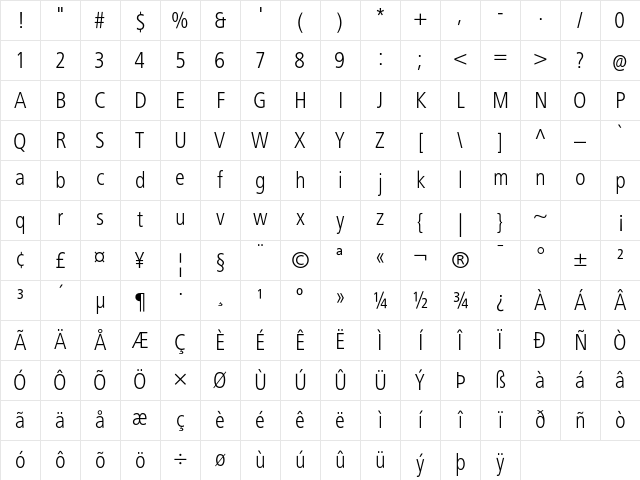
FrutigerNextLT Light Cond
Style: Light Cond
Complete FrutigerNextLT Light Cond glyph index. Displaying only characters natively supported by FrutigerNextLT Light Cond font.
Design Context for FrutigerNextLT
FrutigerNextLT is a composed and adaptable typeface that performs quietly and consistently across a wide range of design contexts. Its slender proportions lend an understated elegance to any composition. Its narrow stance lets it pack a punch even in space-constrained designs.